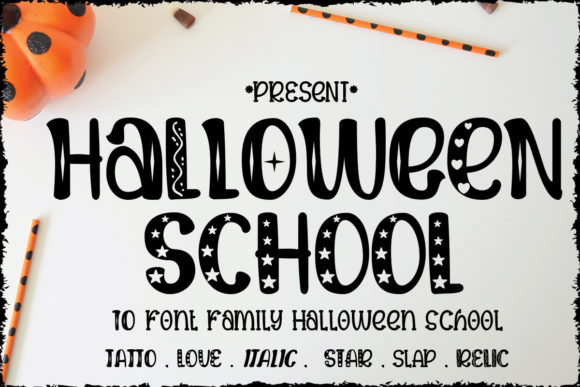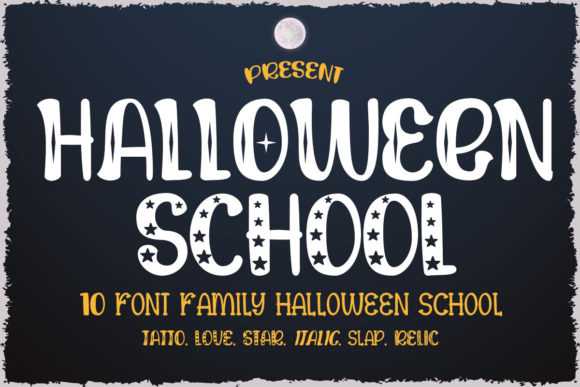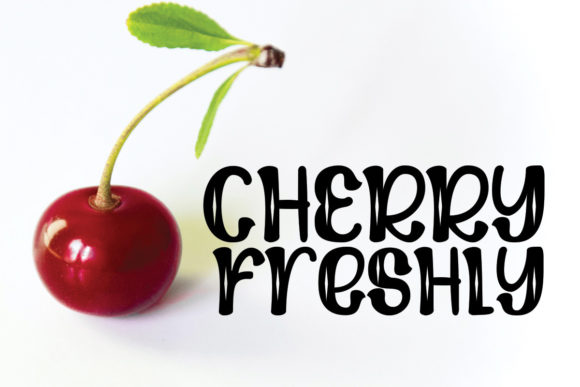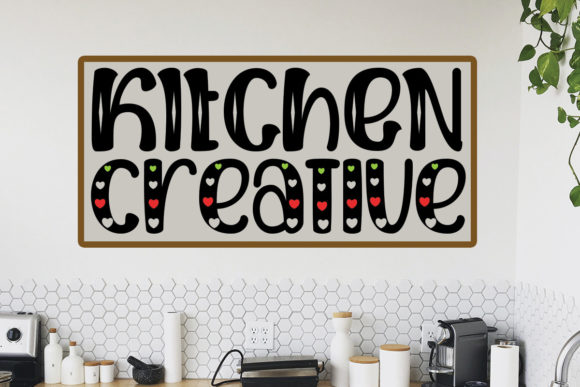
Halloween School Font
About the Halloween School Font
Presenting Halloween School Font, a unique and stylish typeface that will make your work stand out. Halloween School is a simple, casual and informal display font. No matter the topic, this font will be an incredible asset to your fonts’ library, as it has the potential to elevate any creation.
Its playful, slightly spooky character makes it ideal for Halloween-themed projects, children’s books, or branding for businesses with a fun, approachable vibe. Consider using it for headlines, posters, short text blocks on packaging, or social media graphics. Avoid using it for large bodies of text or UI elements where readability is paramount; its informal style isn’t well-suited for extended reading.
Pair Halloween School with a clean sans-serif like Open Sans for a balanced contrast, or a more playful script font like Pacifico for an enhanced whimsical feel. A simple serif like Lora could also provide a sophisticated counterpoint, grounding the design and adding a touch of elegance.
The overall personality is cheerful and slightly mischievous, conveying a sense of fun without being overly childish or aggressive. It’s best suited for projects that need a touch of spooky charm without sacrificing readability in shorter applications.
Halloween School Font Usage Examples
Halloween School Font Example